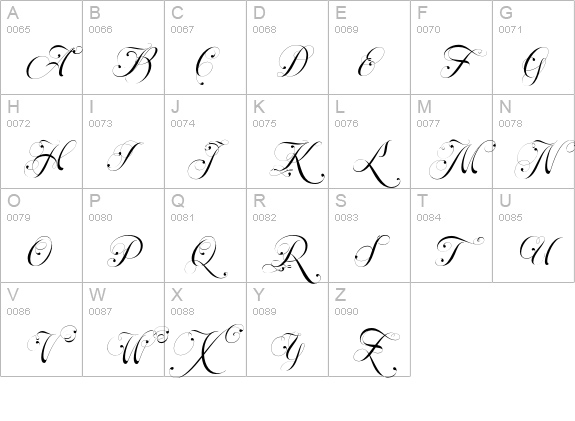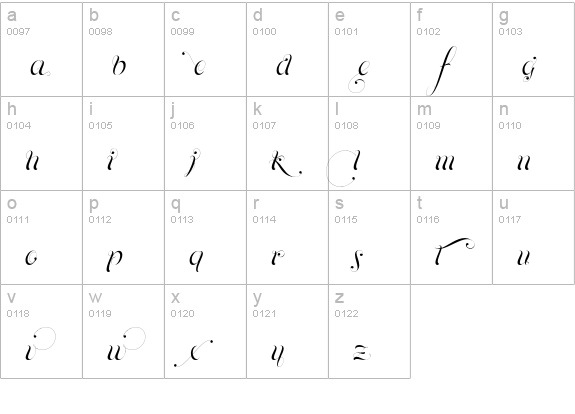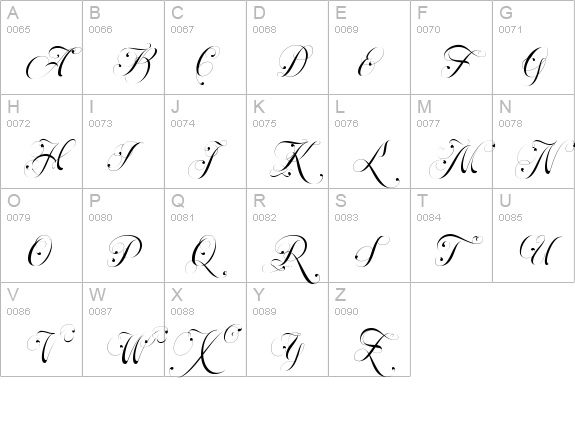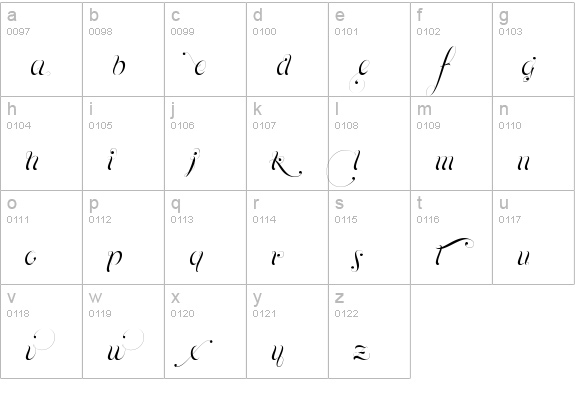
Parfait Script Contextual Font Details
Parfait Script Contextual font is a stunning and versatile typeface that exudes elegance and sophistication. With its delicate curves and graceful flourishes, this font is perfect for adding a touch of refinement to your designs. Whether you're creating wedding invitations, branding materials, or social media graphics, Parfait Script Contextual font will elevate your projects to new heights. This font features contextual alternates that automatically adjust the letterforms based on their placement within a word, ensuring seamless and natural-looking connections between characters. The result is a flowing and cohesive appearance that emulates the look of hand-lettered calligraphy. Best of all, Parfait Script Contextual font is free to download at FontsMarket.com, making it accessible to designers of all levels. Enhance your projects with the timeless beauty of Parfait Script Contextual font today!